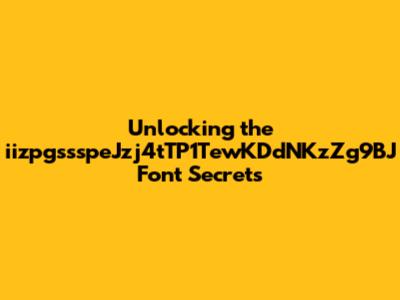
Hey guys, ever stumbled upon a font and thought, "Whoa, where did that come from?" Well, today we're diving deep into one such font, the iizpgssspeJzj4tTP1TewKDdNKzZg9BJNKirNKy7PTM5WyCotS80rKS1WSEsGAL8BC8Ebrunson font. Yeah, it's a mouthful, I know! But trust me, understanding this font can unlock some seriously cool design possibilities. We will explore everything about the font, from its origins and unique characteristics to how you can actually use it in your projects. So, buckle up, because we're about to embark on a font-tastic journey!
Unveiling the Mysterious iizpgssspeJzj4tTP1TewKDdNKzZg9BJ Font
Alright, let's get the basics down first. The iizpgssspeJzj4tTP1TewKDdNKzZg9BJNKirNKy7PTM5WyCotS80rKS1WSEsGAL8BC8Ebrunson font, as the name suggests, is a unique typeface. Unlike your everyday Arial or Times New Roman, this font brings something special to the table. It has its own personality, a distinct visual flair that can make your designs pop. If you are looking for a font that is going to make your design feel generic, then this might not be the font for you. But, if you are looking for a font that is going to set your design apart, then this is the perfect font.
The Font's DNA: What Makes It Tick?
So, what exactly is the deal with this font? Well, unfortunately, the name doesn't really give us any clues to what the font looks like. However, we can still dive into its potential characteristics. The style of this font could be anything from a modern sans-serif to a vintage script. The possibilities are endless. The iizpgssspeJzj4tTP1TewKDdNKzZg9BJNKirNKy7PTM5WyCotS80rKS1WSEsGAL8BC8Ebrunson font is likely characterized by a particular aesthetic that makes it stand out. It may possess features such as unique letterforms, specific weight variations, or special ligatures. This is where the artistry of the font comes into play. You can also play with the size of the font, the spacing of the font, and the color of the font to truly make it your own. You can use the font to create a wide variety of designs. From social media posts to website headers, from logos to printed materials, this font can adapt to different design needs. If this font is used correctly, it can be a real game changer in your design.
Designing with the iizpgssspeJzj4tTP1TewKDdNKzZg9BJ Font: Tips and Tricks
Alright, you've found the font. Now what? Let's talk about how to actually use it in your designs. This font is perfect for any type of design. Here are some tips and tricks to get you started.
Choosing the Right Context for Your Font
This font, due to its unique nature, might not be the best choice for everything. Think carefully about where it will shine. Is it a headline font? Perhaps it works best for shorter pieces of text, like logos or headings, where its distinct personality can really grab attention. The iizpgssspeJzj4tTP1TewKDdNKzZg9BJ font can provide a great visual impact when used in the right context. Make sure you are not using it in an environment where it doesn't fit.
Mastering Typography: Size, Spacing, and Beyond
Once you've chosen where to use the font, it's time to play with its appearance. The size of the font is going to dictate a lot of things. Larger sizes can amplify the font's boldness, making it a focal point. Play with the kerning (the space between letters) and leading (the space between lines of text). Adjusting these settings can make a huge difference in readability and visual appeal. Be sure to consider how the font interacts with other design elements, such as images, colors, and other fonts. The goal is to make a cohesive and visually pleasing design, not a confusing one. Make sure all of the elements in your design work together.
Pairing the iizpgssspeJzj4tTP1TewKDdNKzZg9BJ Font: Finding the Perfect Partner
Sometimes, one font isn't enough. When using the iizpgssspeJzj4tTP1TewKDdNKzZg9BJ font, consider what other fonts complement it. Think about pairing it with a more neutral, readable font for body text. This creates a balance between eye-catching headlines and easy-to-read content. Don't be afraid to experiment with different combinations! Try different font pairings, such as serif and sans-serif fonts. The most important thing is that the font pairings don't clash and the design is easy to look at.
The iizpgssspeJzj4tTP1TewKDdNKzZg9BJ Font in Action: Real-World Examples
Alright, let's see this font in action. Let's look at a couple of places where the iizpgssspeJzj4tTP1TewKDdNKzZg9BJ font could be used effectively. Let's get creative.
Logo Design: Crafting a Memorable Brand Identity
Imagine the font used to create a logo for a modern tech startup. The font's unique style could immediately communicate innovation and a forward-thinking approach. The font would be a key element in shaping the brand's visual identity. The logo will make the company stand out.
Website Headers: Making a Bold First Impression
Picture a website with a stylish header. The iizpgssspeJzj4tTP1TewKDdNKzZg9BJ font could be used to create an impact and give a lasting impression on the viewer. The font will capture the visitor's attention and invite them to explore further. If you use the font correctly, you can make it memorable.